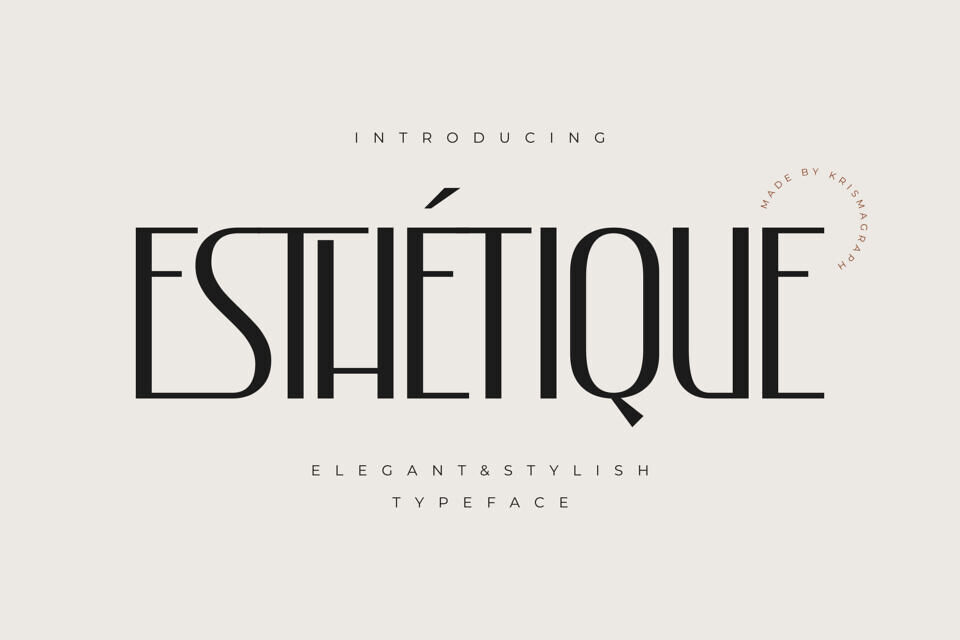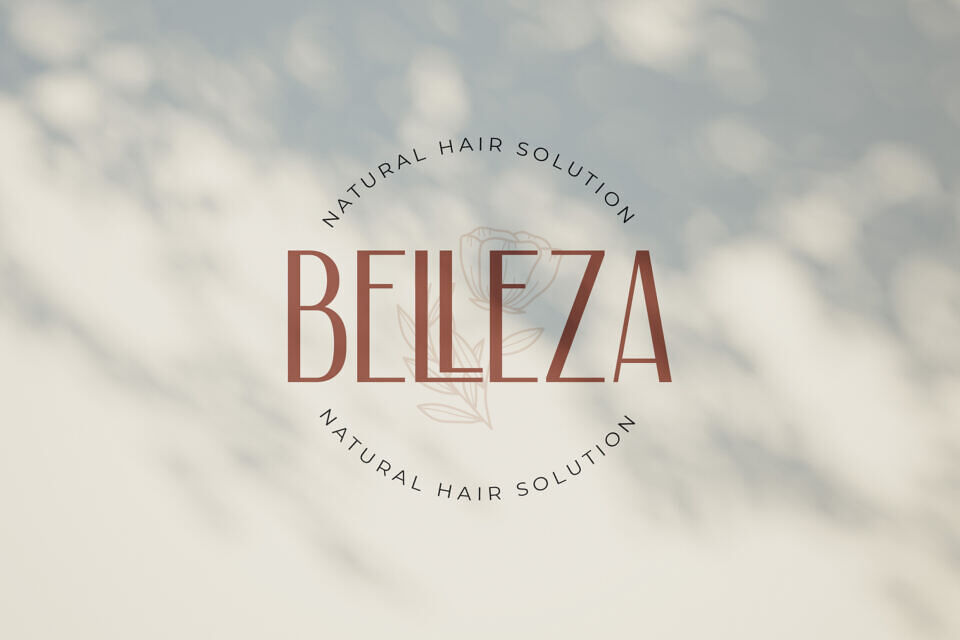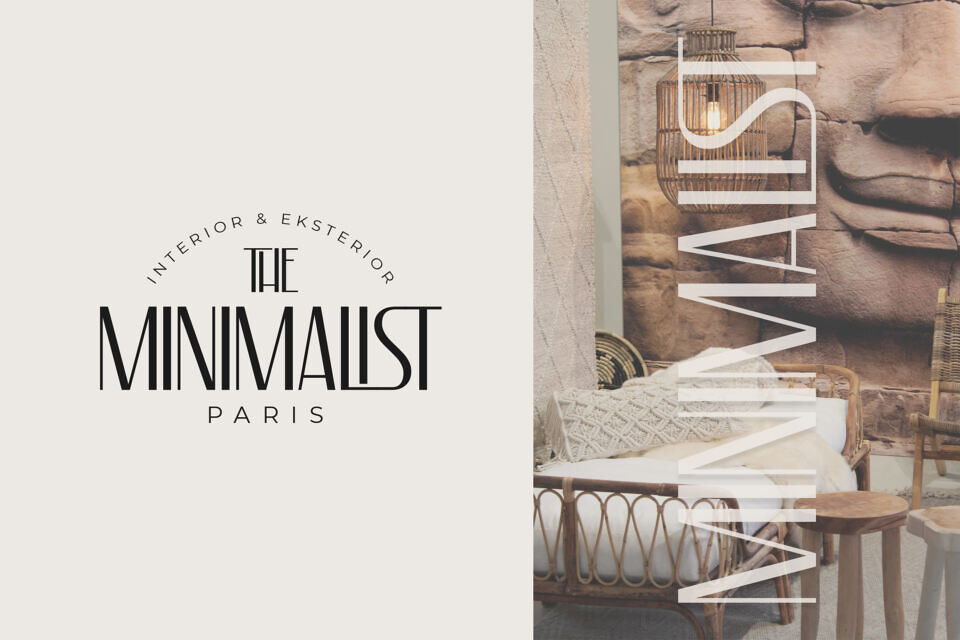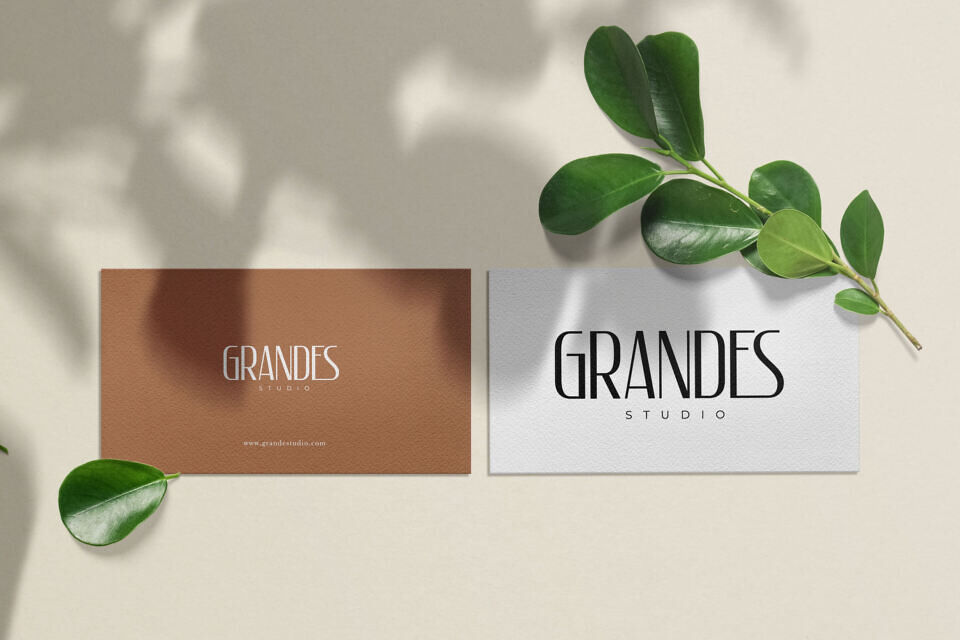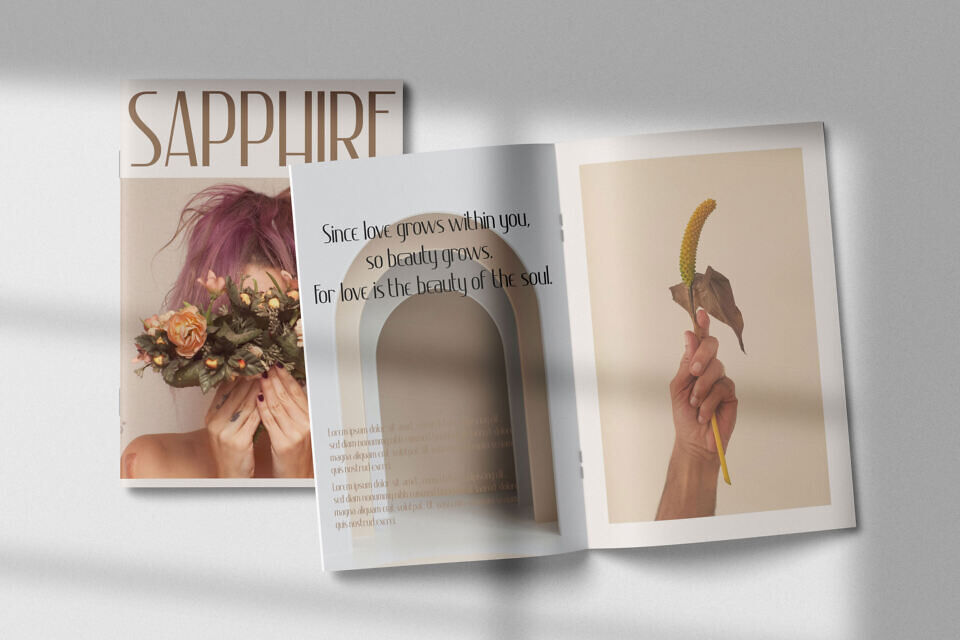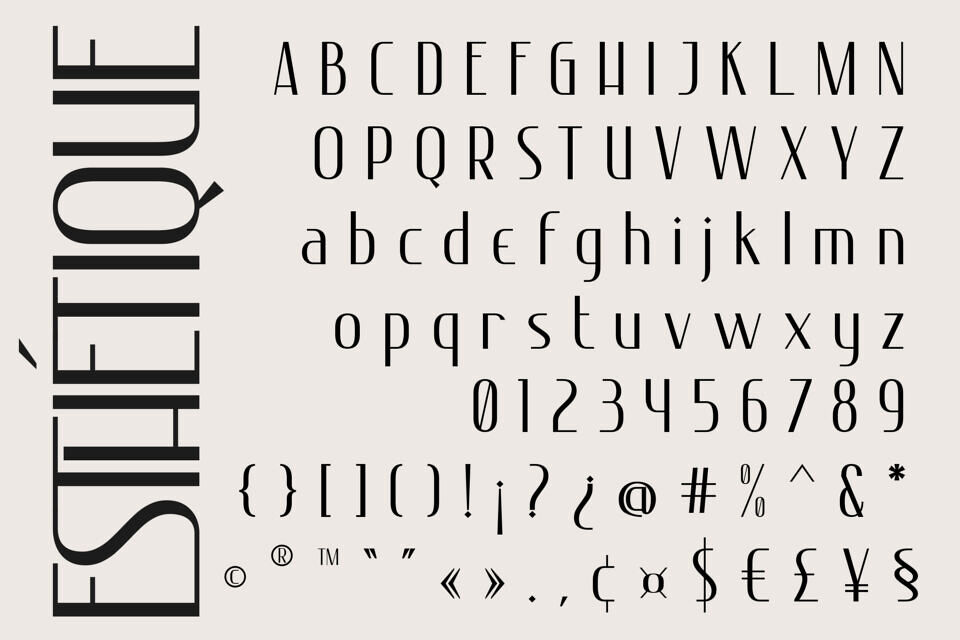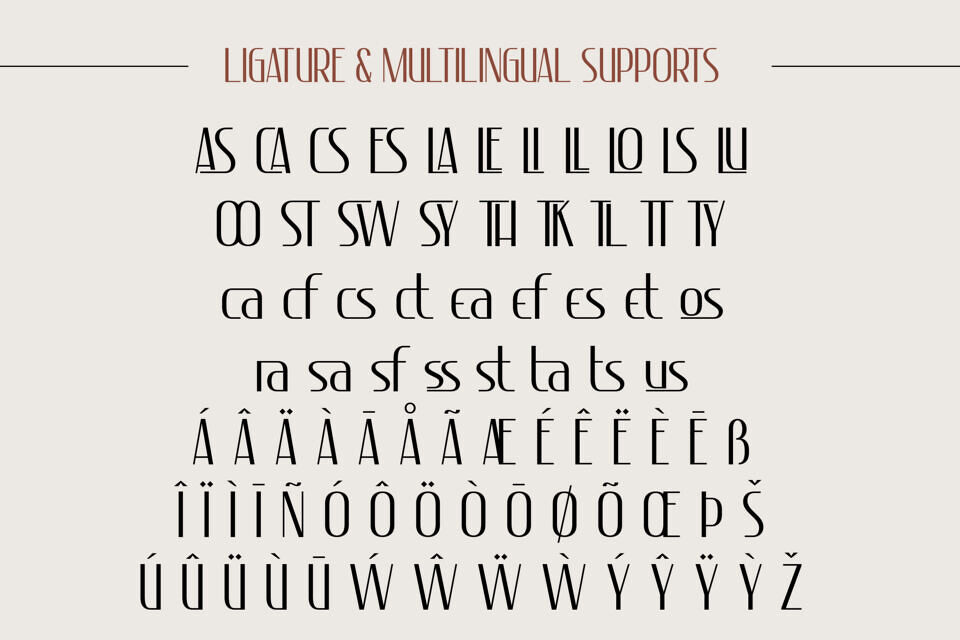
Introducing Esthetique, an Elegant and unique Stylish Typeface. This font is modern and classy and works great for logos, magazine, social media.
Already matched up and ready to be used together for your next design! For those of you who are needing a touch of elegant, stylish, classy, chic and modernity for your designs, this font was created for you!